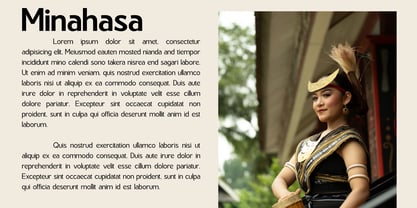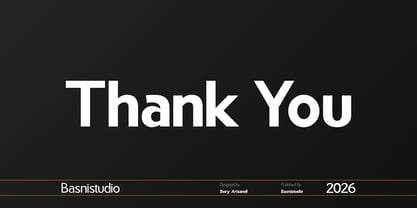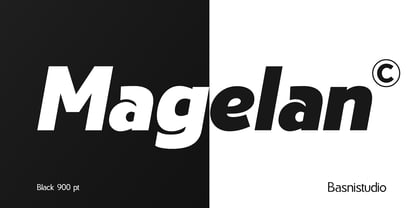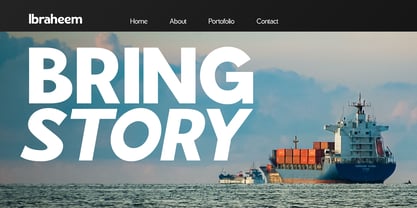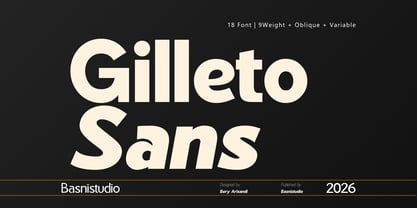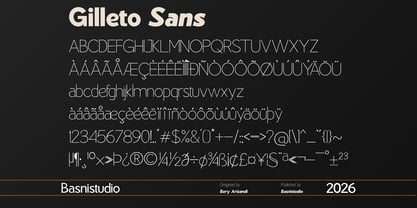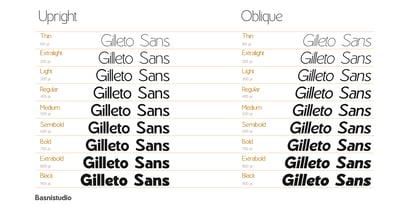
Gilleto Sans
von Basnistudio
Die Schriftfamilie Gilleto Sans wurde von Bery Arisandi entworfen und von Basnistudio veröffentlicht. Gilleto Sans enthält 18 Stile. Mehr über diese Familie
Gilleto Sans
Gilleto sans typeface designed for brands that value clarity, professionalism, and timeless style.
With its clean lines, balanced proportions, and contemporary character, this font delivers exceptional readability across logos, brand identities, packaging, presentations, websites, and marketing materials.
Whether you’re building a corporate identity, launching a startup, or creating premium brand assets, this versatile typeface provides the confidence and sophistication your design needs.
• Variable Font Support
• Wide Weight Range
• Elegant Serif Design
• Multilingual Characters
• Perfect for Branding, Editorial, Packaging, and Luxury Projects
Designer: Bery Arisandi
Foundry: Basnistudio